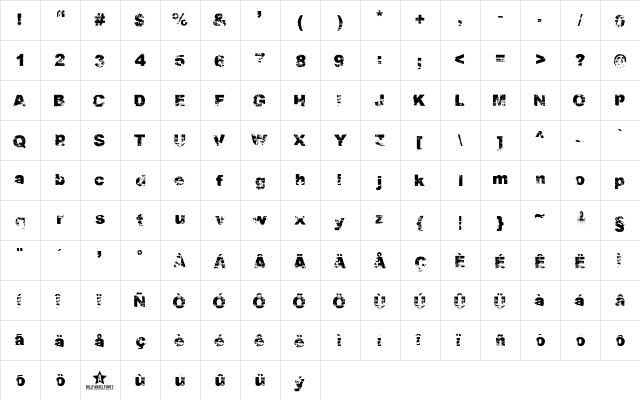
PDRPT Regular Font Preview
PDRPT Regular
Design Context for PDRPT Typeface
PDRPT is a composed and adaptable typeface that performs quietly and consistently across a wide range of design contexts.